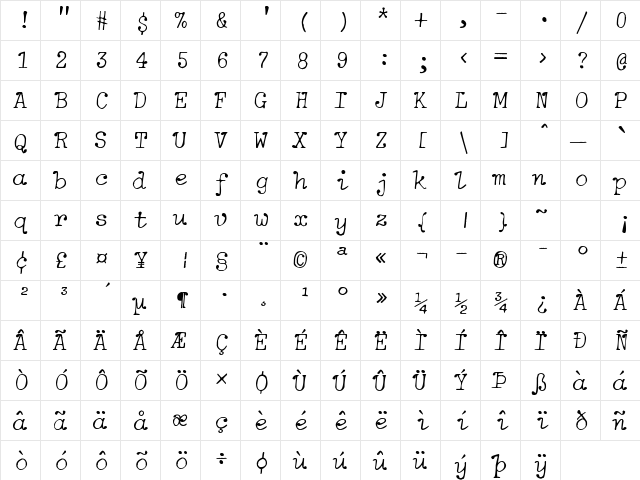
zai Soft Italic Typewriter Regular
| Foundry | ZAI |
| Designer | Tomasz Skowroֳki |
Design Context for zai Soft Italic Typewriter Typeface
zai Soft Italic Typewriter uses fixed-width spacing throughout, giving it the structured, systematic character associated with coding environments and technical documentation. The dynamic lean of this cut emphasises speed and emphasis in any layout.
A natural fit for code editors, technical documentation, developer-focused branding, and terminal-inspired UI.